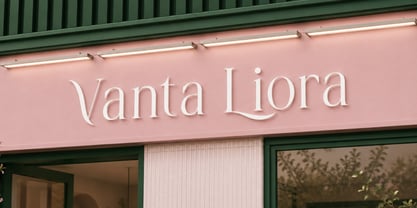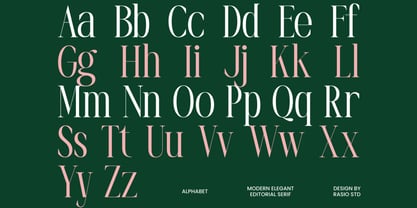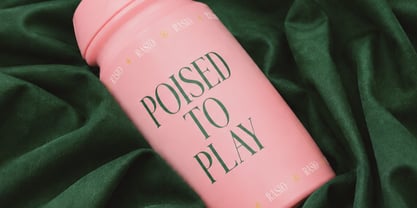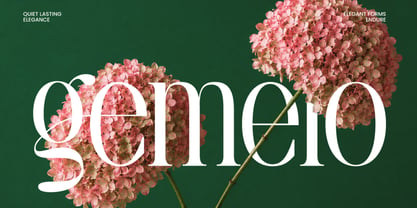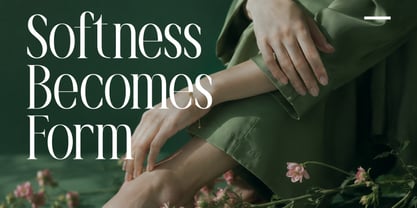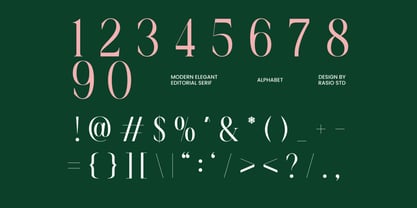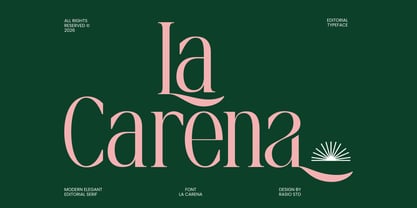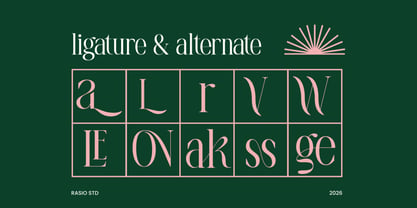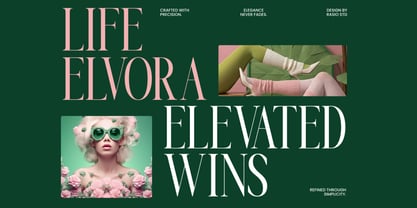
La Carena
by Rasio Studio
The La Carena Font Family was designed by Fajar Indra and published by Rasio Studio. La Carena contains 1 styles. More about this family
La Carena is a refined editorial serif typeface defined by high contrast, elongated proportions, and elegant, sharply articulated serifs. Its letterforms combine slender hairlines with stronger vertical strokes, creating a graceful rhythm that becomes especially expressive at larger sizes. Distinctive details such as the sweeping lower strokes, sculpted terminals, curved transitions, and elegant lowercase forms give the typeface a sophisticated personality without making the lettering feel overly ornate.
Relevance and Use Case is perfect for editorial covers, boutique identities, premium packaging, beauty campaigns, wedding materials, art publications, and carefully composed promotional graphics. Its high-contrast construction works particularly well for large titles, brand names, collection names, cover treatments, and short statements where the fine details of the letterforms remain visible.